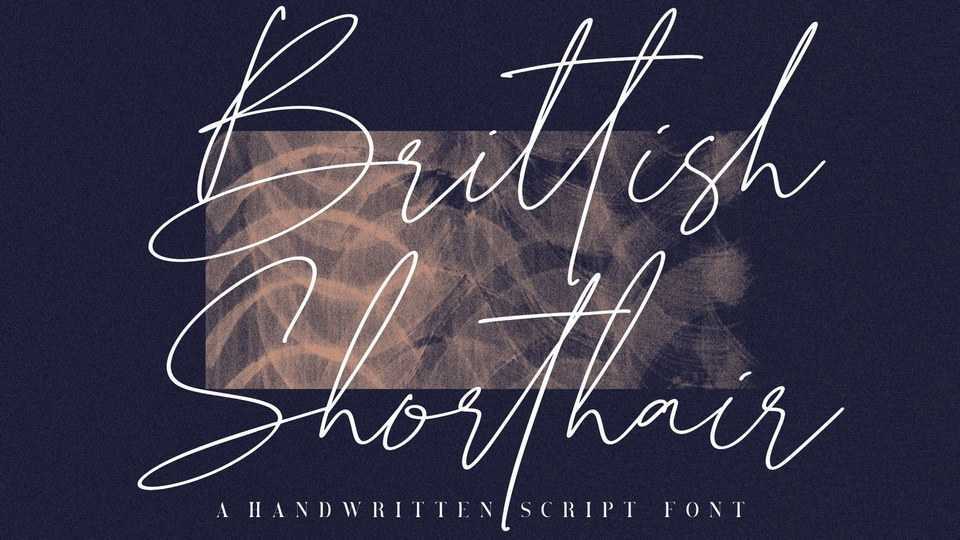
Download Brittish Shorthair Script font, a fashionable sophisticated signature style typeface with its own unique curves and an elegant inky flow. Brittish Shorthair Script is perfect for branding projects, logo, wedding designs and other.